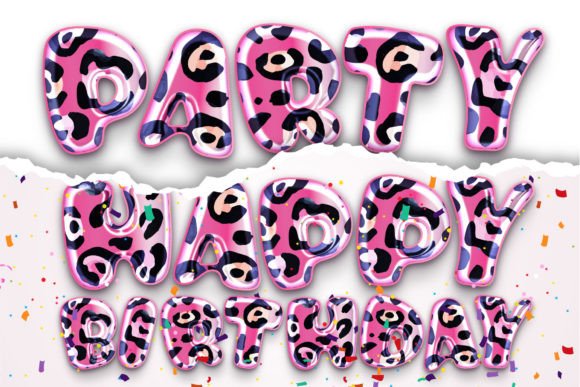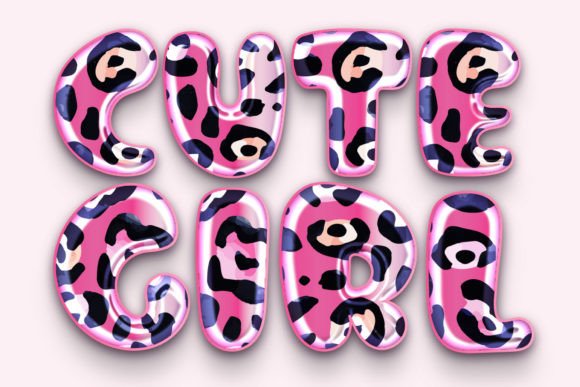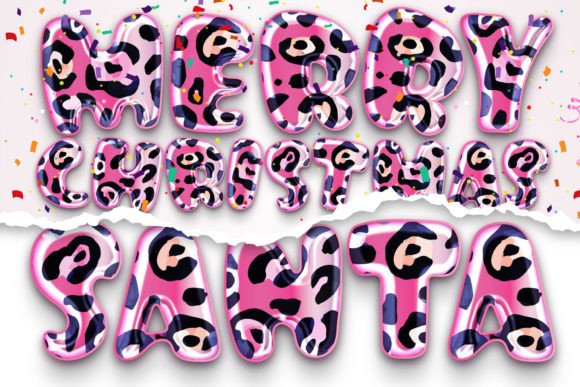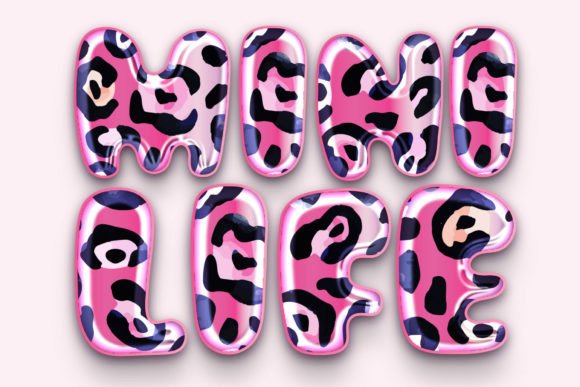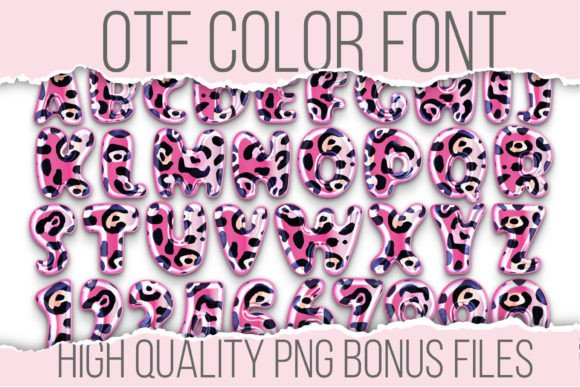
Bring Joy to Your Designs with the Kids Leona Font
Have you ever stared at a blank page, searching for the perfect font to capture the imagination of your young audience? As a designer, you know the importance of choosing a font that speaks to your target demographic, and for kids’ projects, it’s essential to find a font that’s both playful and authentic.
That’s where the Kids Leona Font comes in – a delightful color font that embodies the spirit of childhood wonder. With its cute leopard style and vibrant colors, this font is the perfect choice for any children’s activity or school project. Whether you’re designing a birthday invitation, a kids’ menu, or a educational brochure, the Kids Leona Font is sure to bring a smile to your clients’ faces.
Kids Leona Font Key Features
- Font Family: Kids Leona Font is a sans-serif font family designed for children’s content.
- Character Count: The font family includes over 1,000 glyphs, covering a wide range of characters and languages.
- Unique Characteristics: The font features rounded edges, smooth curves, and a friendly appearance, making it suitable for children’s educational materials, apps, and websites.
Designer Review: Kids Leona Font
Overall, I think the Kids Leona Font is a cute and playful choice for a children’s book or a kid-friendly website. Here are some things that work well:
- ✨ The font has a fun, childlike feel that’s perfect for its intended audience.
- ✨ The font is highly legible, even at smaller font sizes, making it great for body text or captions.
- ✨ The font has a wide range of weights and styles, making it easy to mix and match to create visual interest.
- ⚠️ The font may not be suitable for more formal or professional applications, as it can come across as too childish.
- ⚠️ The font may not be as versatile as some other fonts, and may not work well in certain design contexts.
- ⚠️ The font may require some additional styling to make it stand out, as it can be a bit generic on its own.
Overall, I think the Kids Leona Font is a solid choice for the right project, but may not be the best fit for every design need. With a little creativity and styling, it can be a great addition to a kid-friendly design.
To get the most out of Kids Leona Font, use it for designs that require a playful and child-friendly feel, such as:
– Children’s book covers
– Party invitations
– Educational materials
Kids Leona Font is commonly used for:
– Titles and headings
– Body text for children’s content
– Captions for illustrations and graphics
Alternatives to Kids Leona Font
Cute Font
Cute Font is a playful and whimsical font that is perfect for children’s products, nursery decor, and other kid-friendly designs. It features rounded edges and a bouncy feel that is sure to bring a smile to your audience’s faces. Compared to Kids Leona Font, Cute Font is more versatile and can be used in a wider range of designs, from invitations to product labels.
Playfair Display is a luxurious and elegant font that is perfect for high-end designs, such as luxury brand logos, wedding invitations, and other special occasion designs. While it may not be as playful as Kids Leona Font, it has a sophisticated feel that can add a touch of glamour to your designs. Use Playfair Display when you need a font that exudes refinement and sophistication.
Great Vibes is a modern and trendy font that is perfect for designs that need a touch of fun and personality. It features a unique, hand-drawn feel that is sure to stand out in your designs. Compared to Kids Leona Font, Great Vibes is more casual and laid-back, making it perfect for designs that need a relaxed, beachy vibe.
The recommended font size for the Kids Leona Font varies depending on the intended use. For body text, a font size of 12-14 points is recommended. For headings, a font size of 18-24 points is suitable. However, feel free to experiment with different font sizes to achieve the desired visual effect.